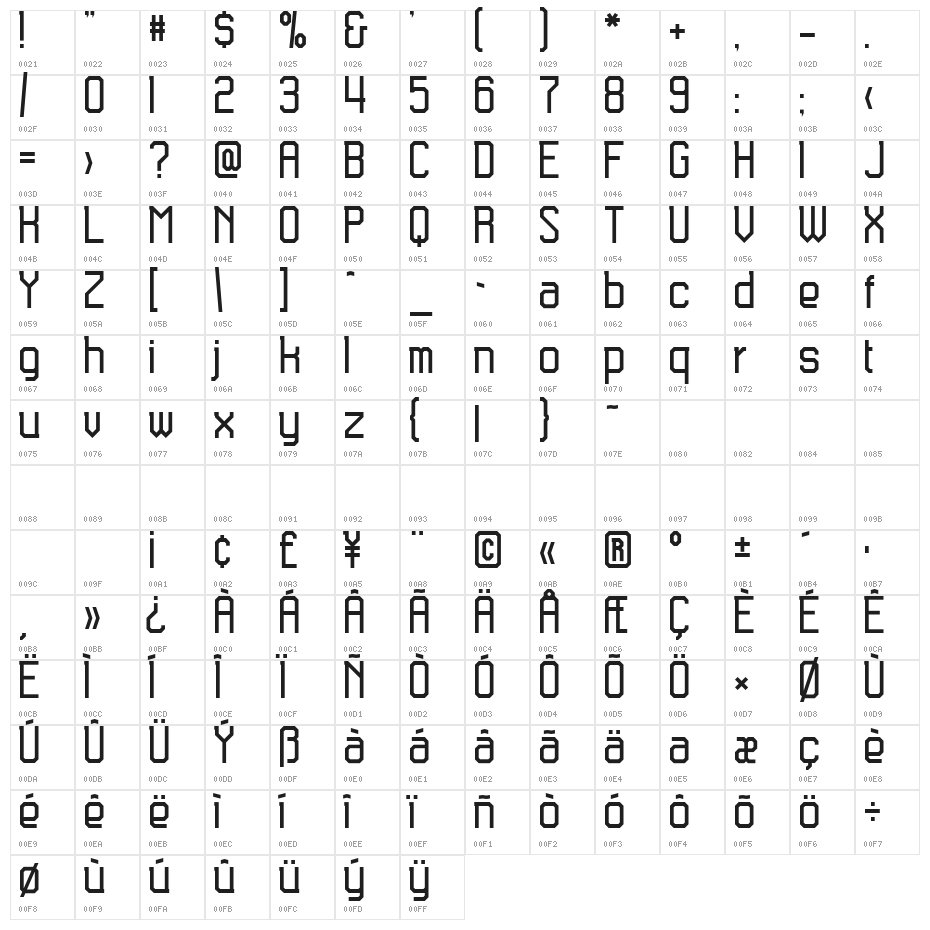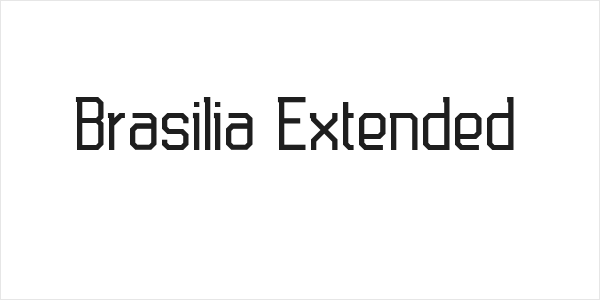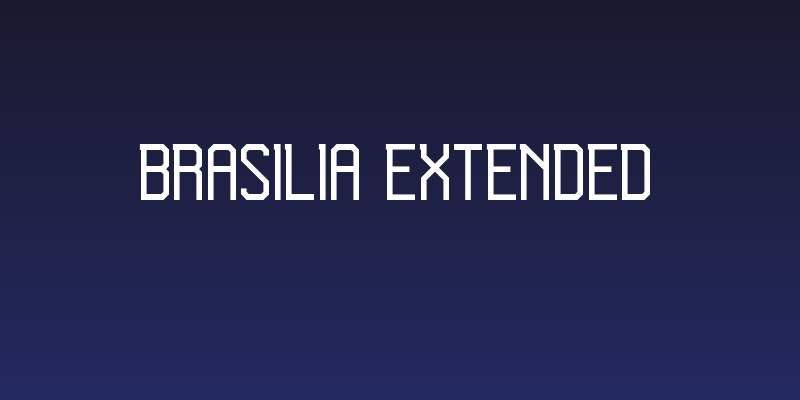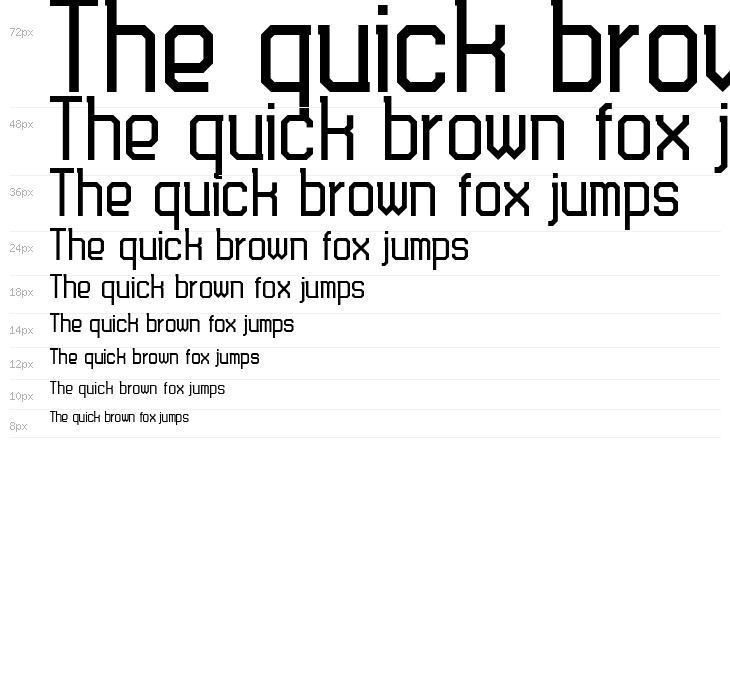
Brasilia Extended Font
Brasilia Extended Description
This font features a geometric and structured design, characterized by its extended and angular letterforms. The uppercase and lowercase letters maintain a consistent height, creating a uniform appearance. The strokes are bold and uniform, with a slight emphasis on vertical and horizontal lines, giving it a modern and futuristic feel. The numerals and special characters follow the same design principles, ensuring cohesion across all elements. The overall style is clean and minimalistic, making it suitable for projects that require a contemporary and technical aesthetic.
| Use Case | Headlines, Logos, Digital Interfaces |
| Proposed Projects | Ideal for technology branding, modern posters, digital interfaces, and architectural designs. |